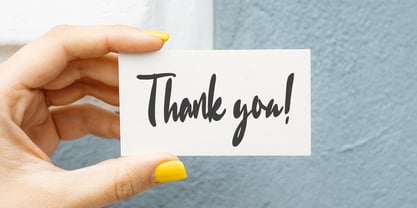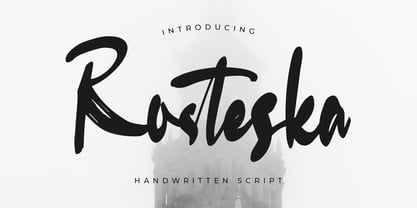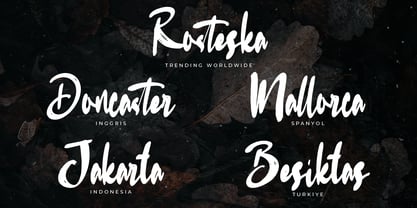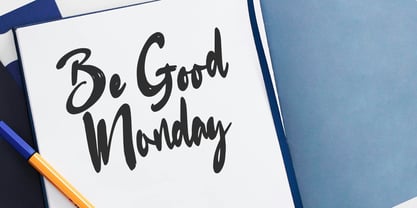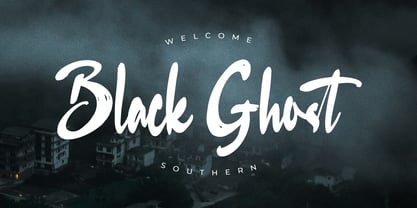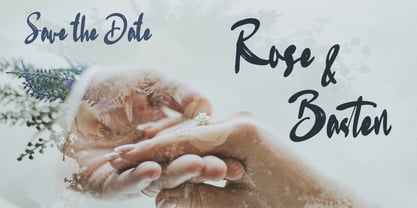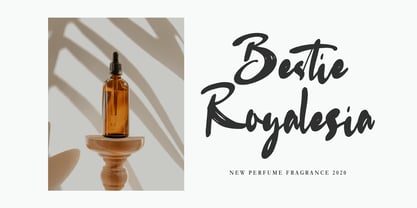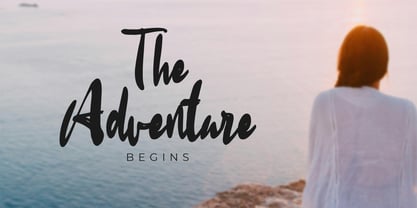
Rosteska
by Mega Type
The Rosteska Font Family was designed by M Akmal and published by Mega Type. Rosteska contains 1 styles.
The Rosteska handwritten script font boasts a bold, dynamic character with fluid brush-like strokes that exude both elegance and confidence. Its letterforms are crafted with intentional irregularities that mimic authentic handwriting, giving it a spontaneous and expressive feel. The sweeping curves and thick-thin contrast bring visual interest and personality to every word it forms, making it a powerful option for designers seeking a personal, handmade touch.
This font is perfectly suited for a wide range of creative projects, especially those that aim to capture attention and convey a bold message. It works exceptionally well for branding and logo design, packaging, social media posts, wedding invitations, magazine headers, and merchandise. Whether used in large headings or stylish overlays, Rosteska adds a distinctive flair that transforms ordinary text into captivating visual statements.
Designers: M Akmal
Publisher: Mega Type
Foundry: Mega Type
Design Owner: Mega Type